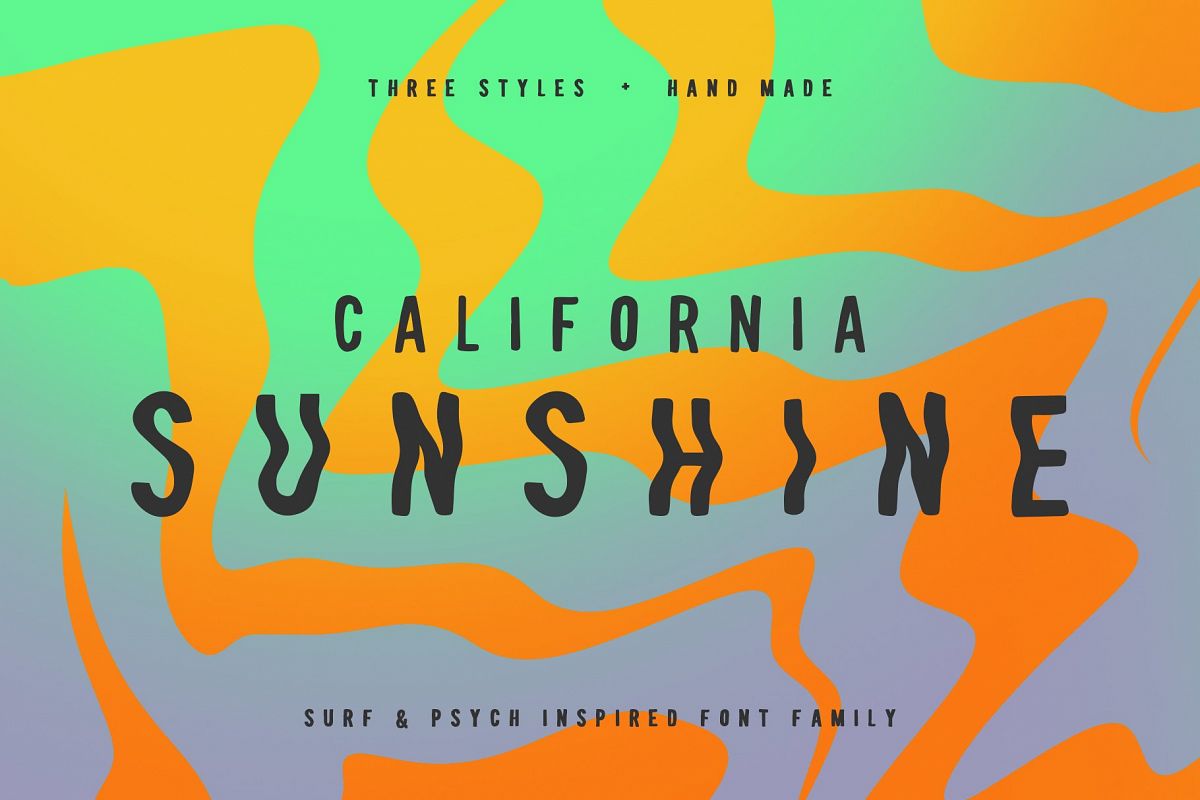
California Sunshine Typeface
California Sunshine evokes the ever-present tickle in the back of our minds that dares to seek out new horizons. Pulling inspiration from surf, skate, psych, music, and the 1960s, California Sunshine is a font that will take your designs, stationary, logos, branding, music posters, and apparel to a new and epic level.In three styles for the ultimate design combinations, your purchase includes: